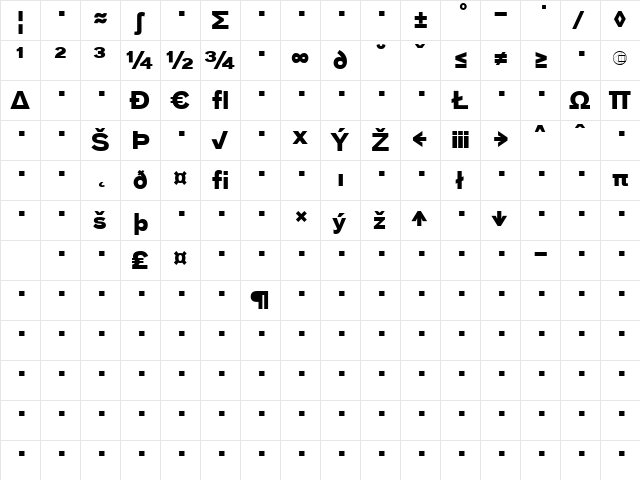
BauLF-BoldExpert Regular Font Preview
BauLF-BoldExpert Regular
BauLF-BoldExpert Regular Font Details
| Foundry | Christian Schwartz published by FontShop International for the FontFont Library |
| Designer | Christian Schwartz |
Design Context for BauLF-BoldExpert Typeface
BauLF-BoldExpert takes a measured approach to typography — its balanced proportions and neutral character make it a reliable workhorse for both digital and print work. Its bold stroke weight gives it real presence on the page.